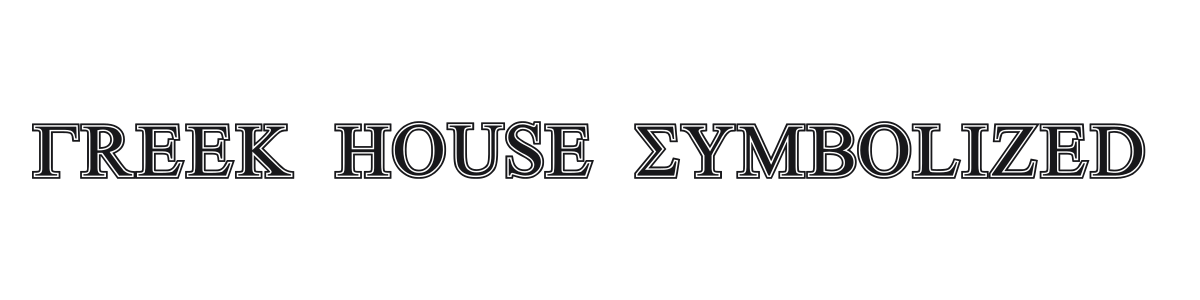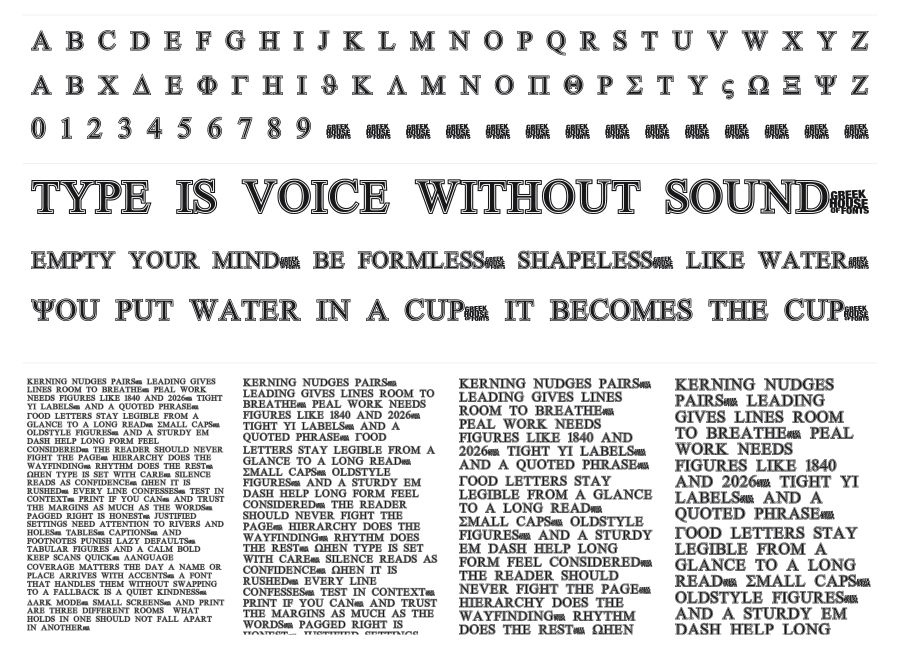
Greek House Symbolized
Greek House Symbolized is a bold slab serif display face by Sebastian with inline engraving details that give each letter a chiseled, dimensional quality. The letterforms draw from Greek and collegiate fraternity aesthetics, making it a natural pick for sorority and fraternity graphics, campus event posters, and anything that needs that classic Greek-letter-society look. Best at large sizes where the engraved details stay crisp and readable.